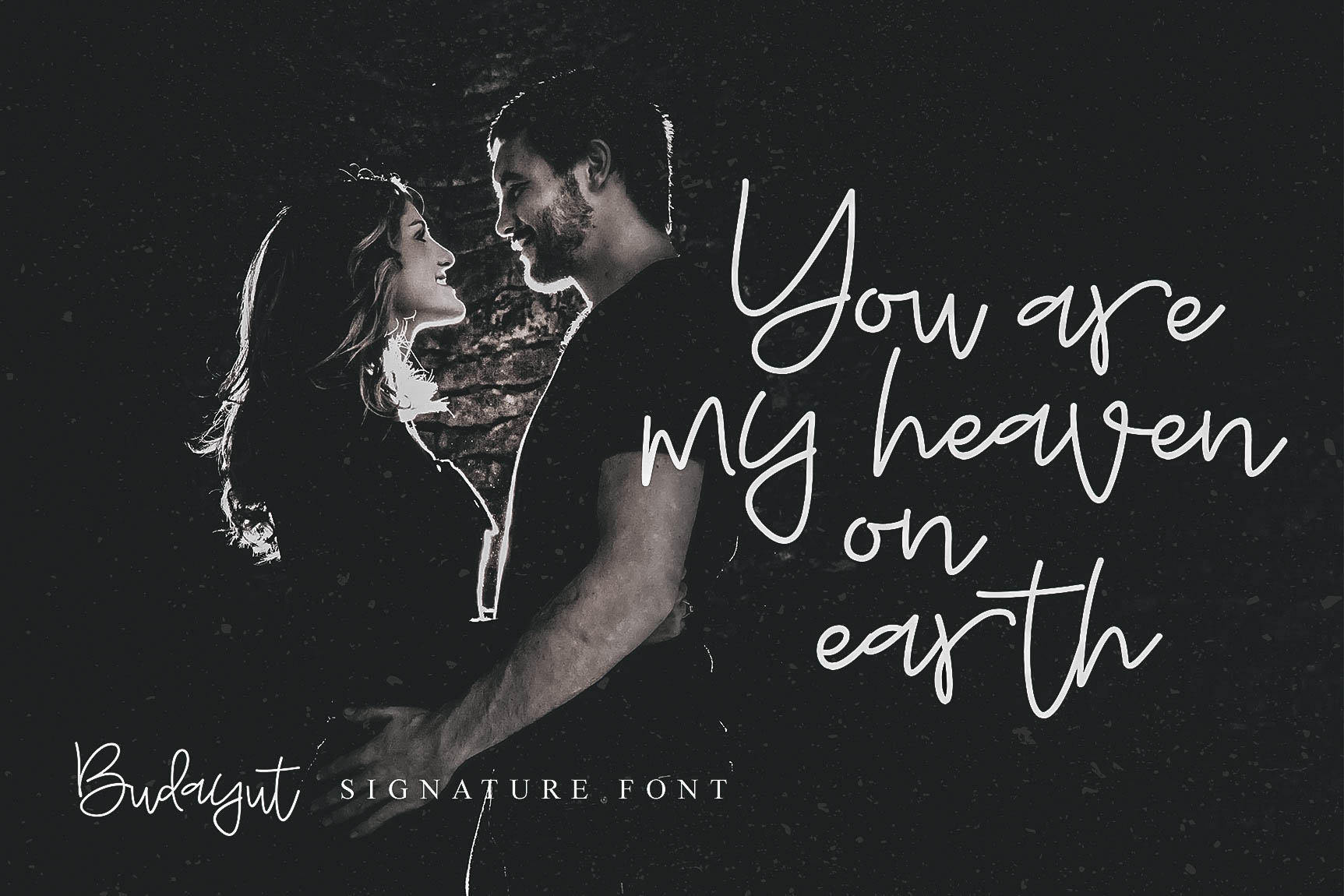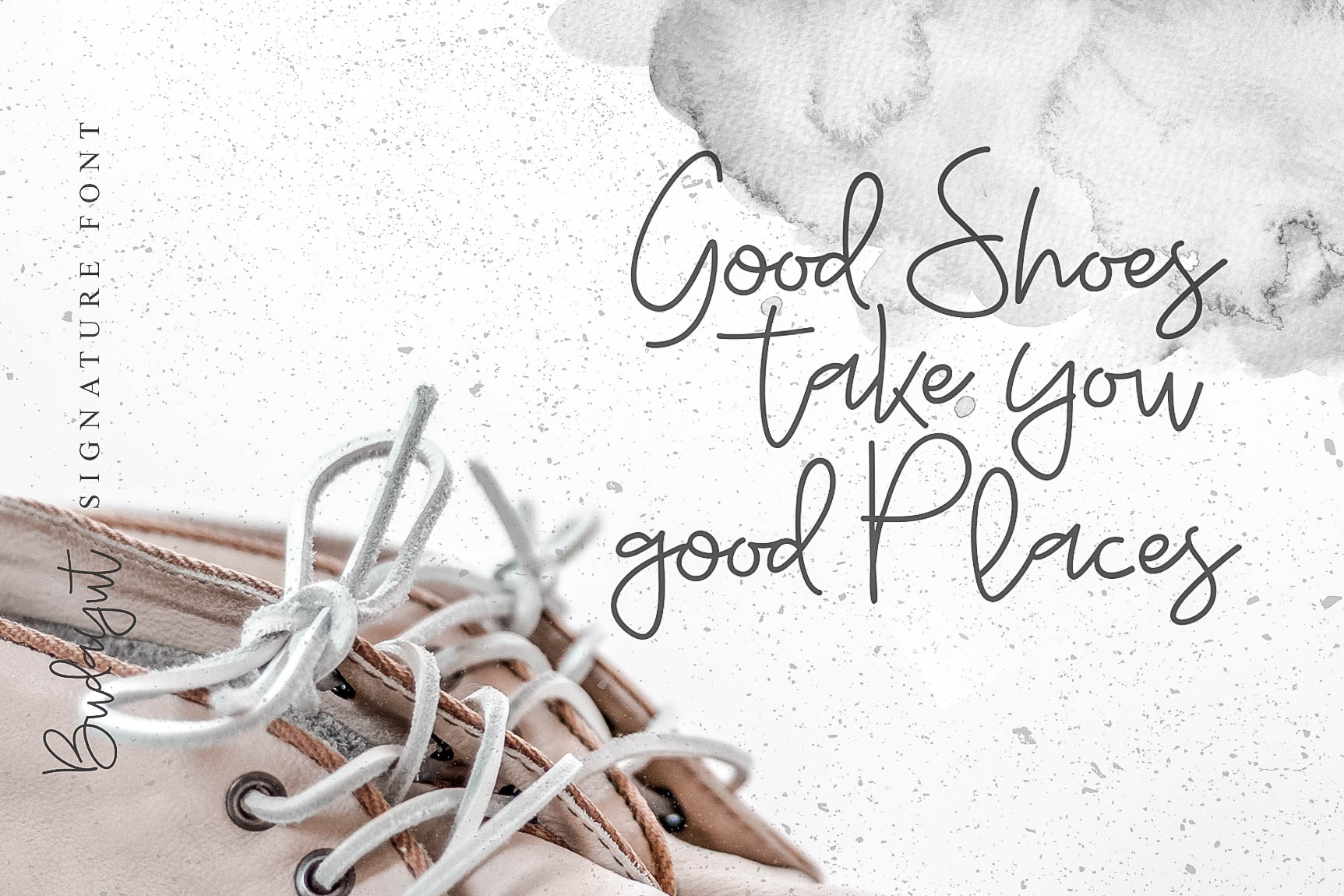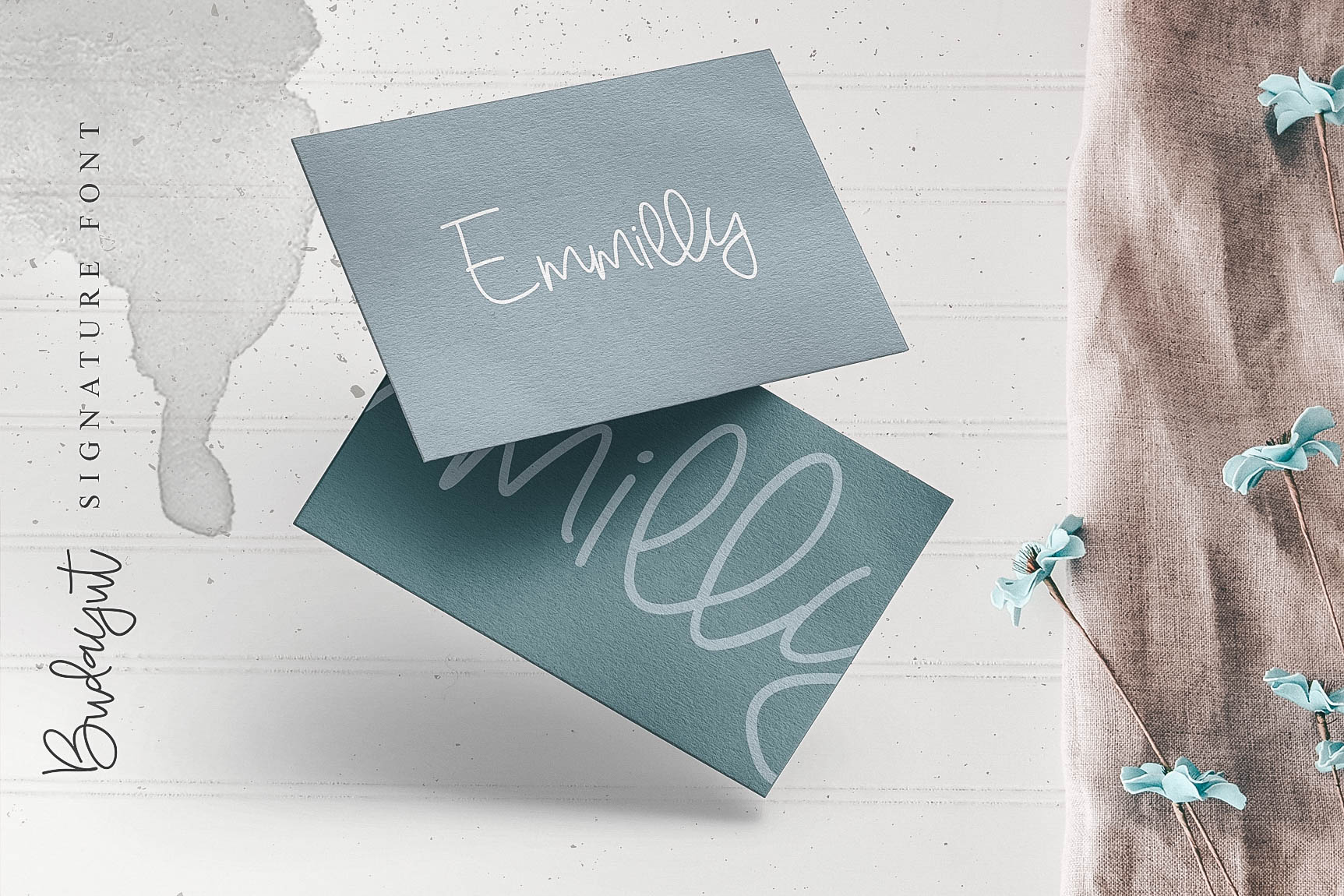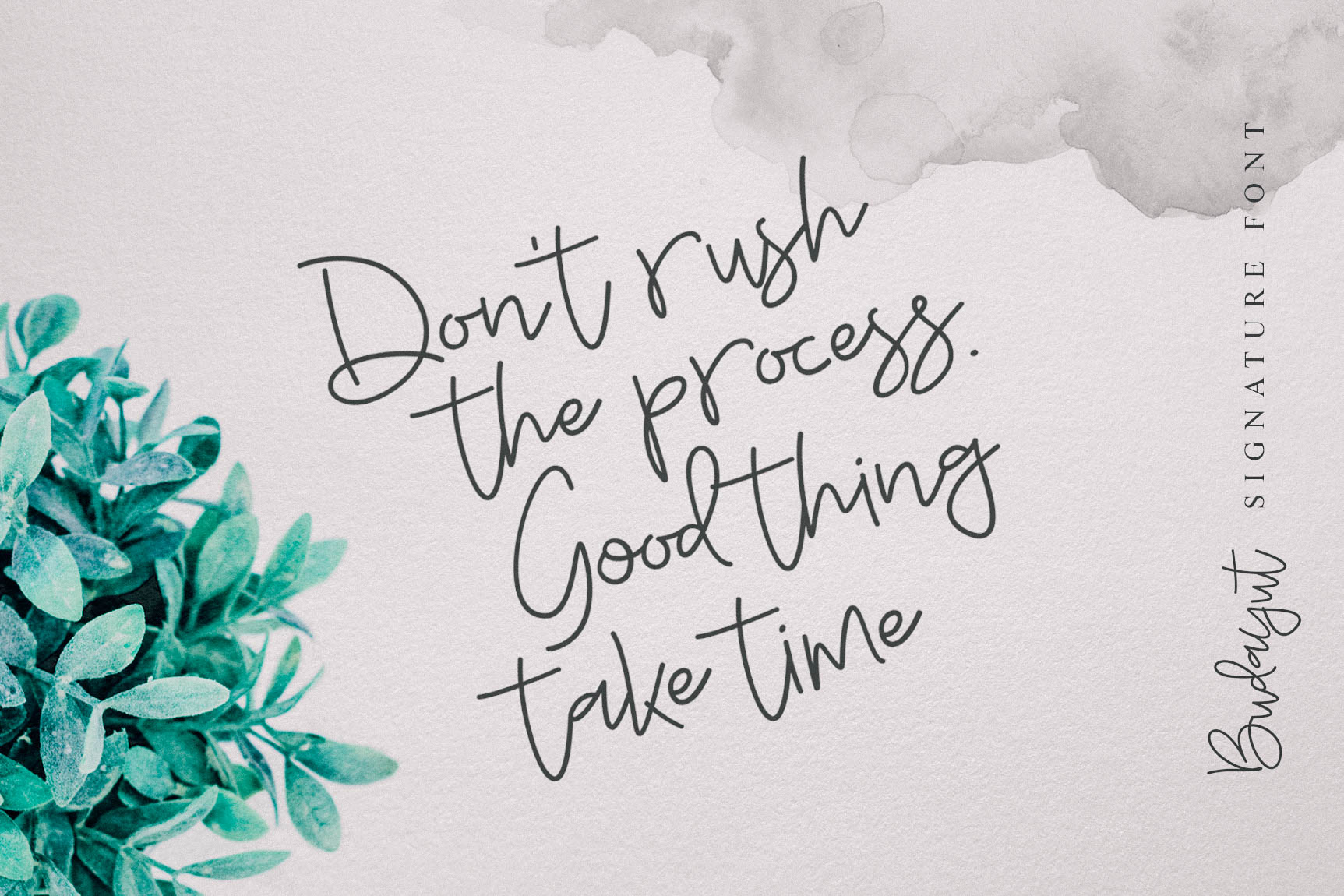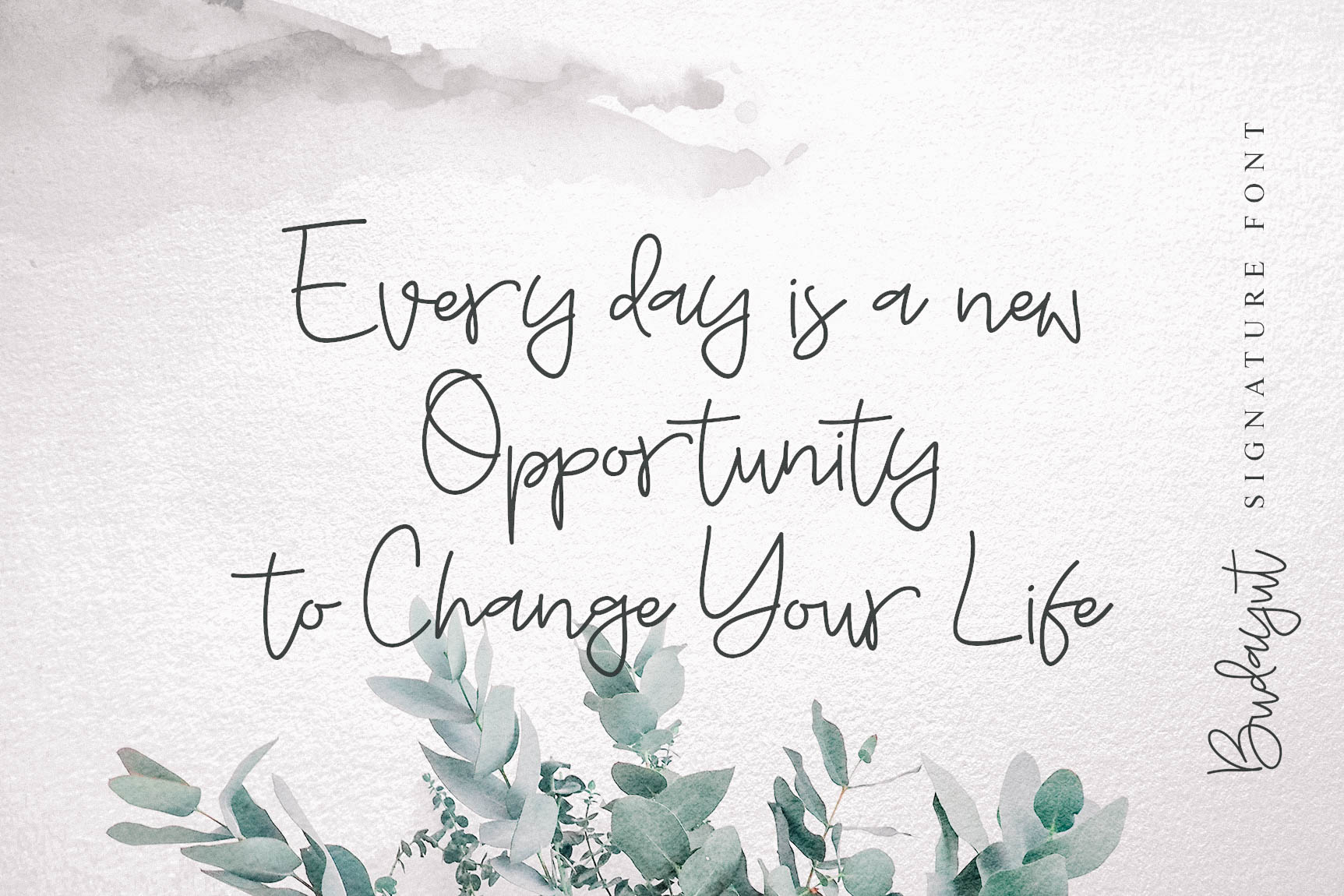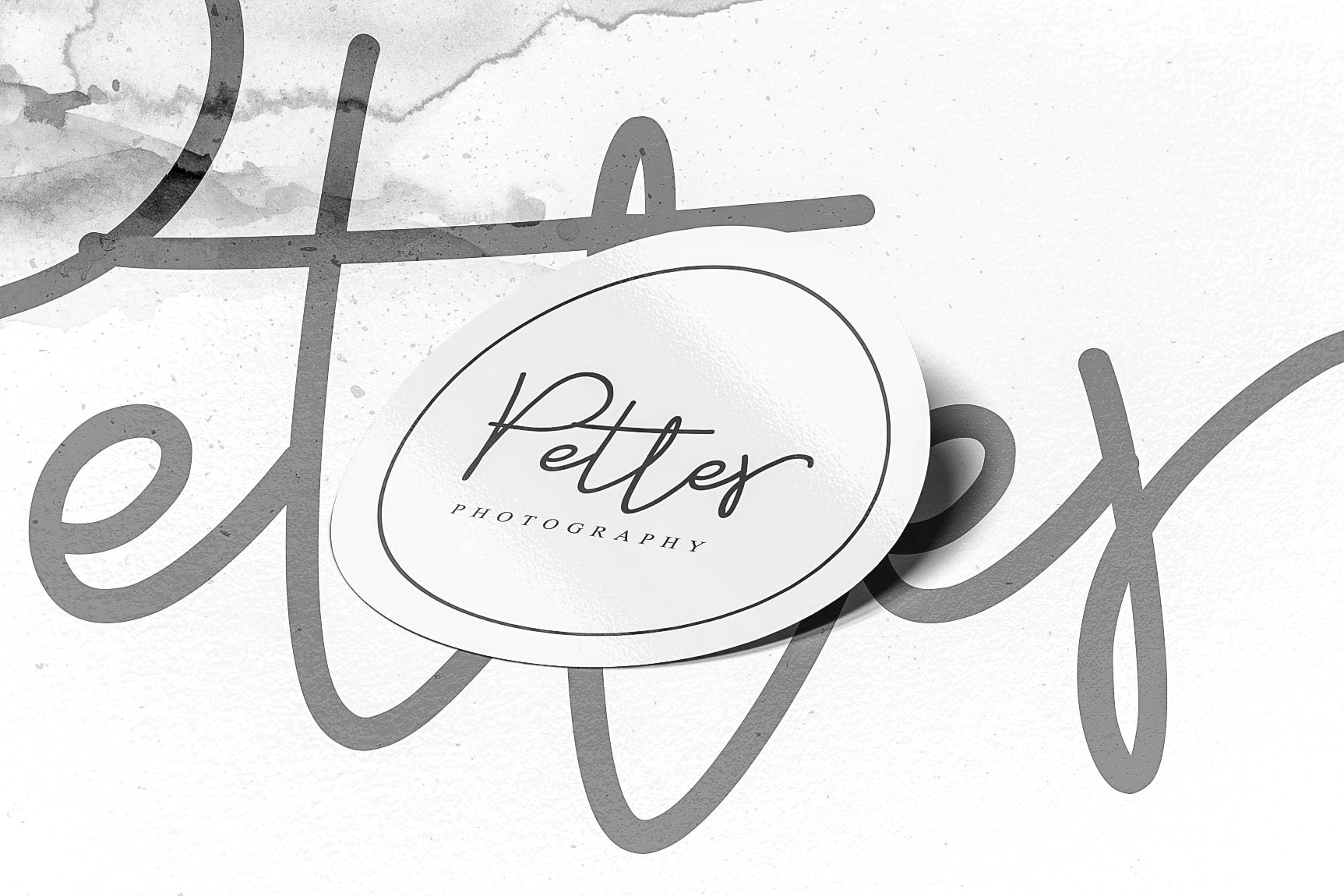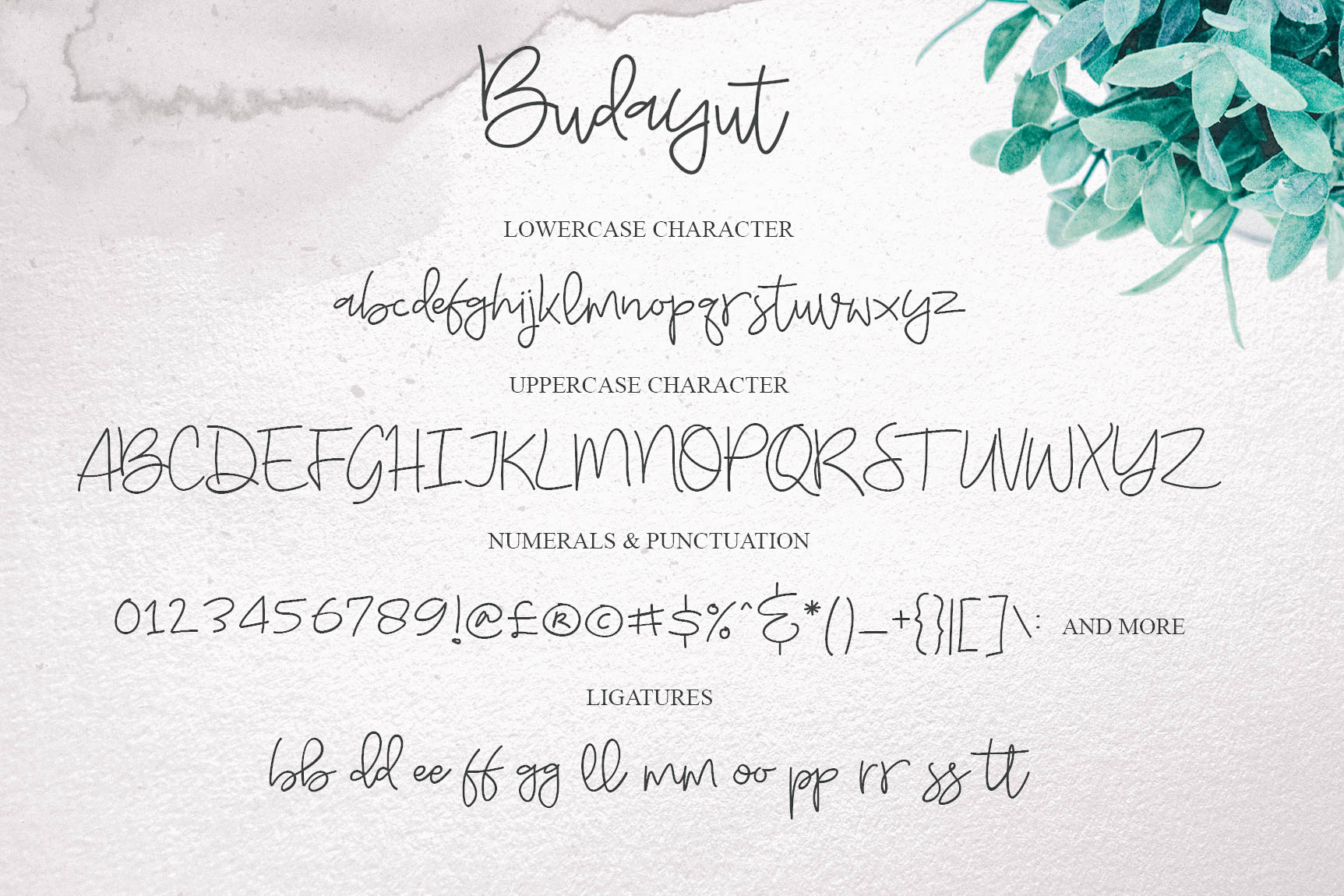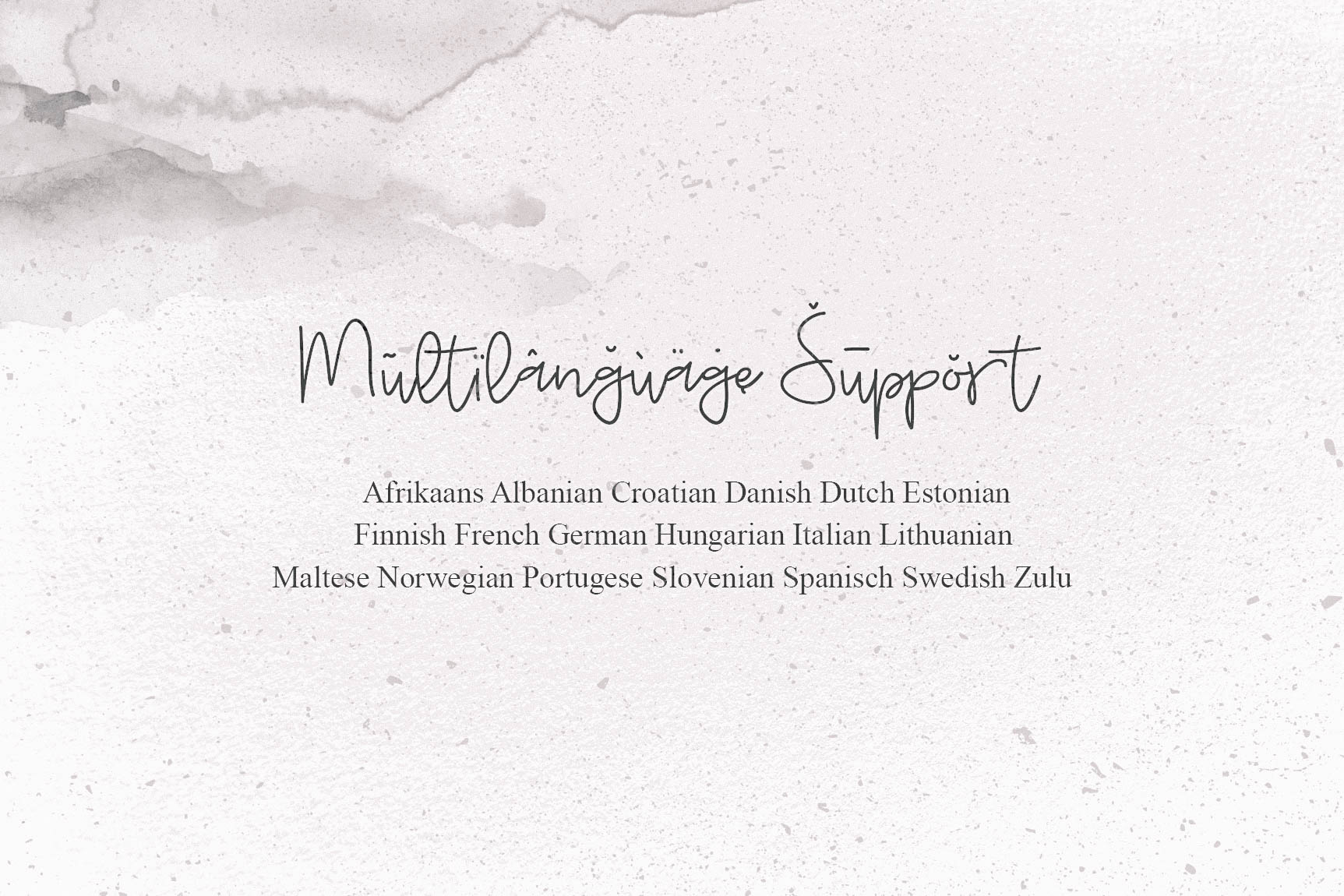
Budayut Font
About Budayut Font
Budayut is a stunning, monoline signature font, perfect for use in a wide range of projects and designs. This is a fashionable and brandable looking font that can amplify your projects.